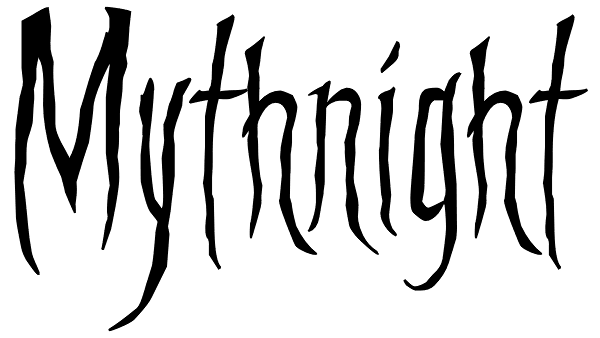
Mythnight
The sketches for this font were made while listening to "Thriller" by Michael Jackson. I wanted a ghoulish and creepy looking font, and strangely the font was completed while listening to "Jesus Christ Superstar" Talk about creepy!